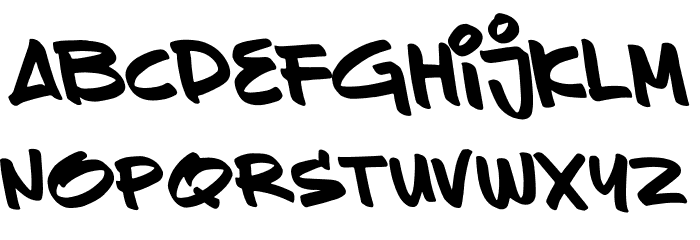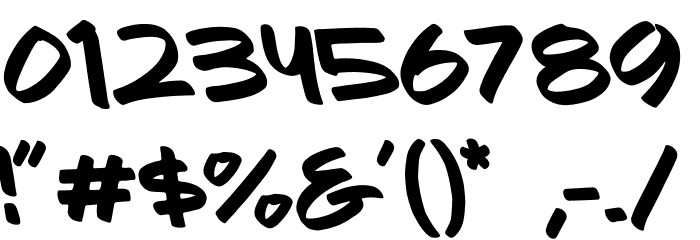
Sevarozi Tilted Font
This font features a bold, playful style with a slightly tilted orientation, giving it a dynamic and energetic appearance. The characters are rounded with a consistent stroke width, contributing to a friendly and approachable look. The uppercase and lowercase letters maintain a uniform height, enhancing readability. The numbers and special characters are designed to match the overall style, ensuring a cohesive appearance across all text elements. This font is ideal for projects that require a fun and informal touch.
A bold, playful font with a tilted, dynamic style.
- Font: Sevarozi Tilted
- Proposed Projects: Perfect for children's books, playful branding, posters, and informal invitations.
- Overall Style: Playful, Energetic